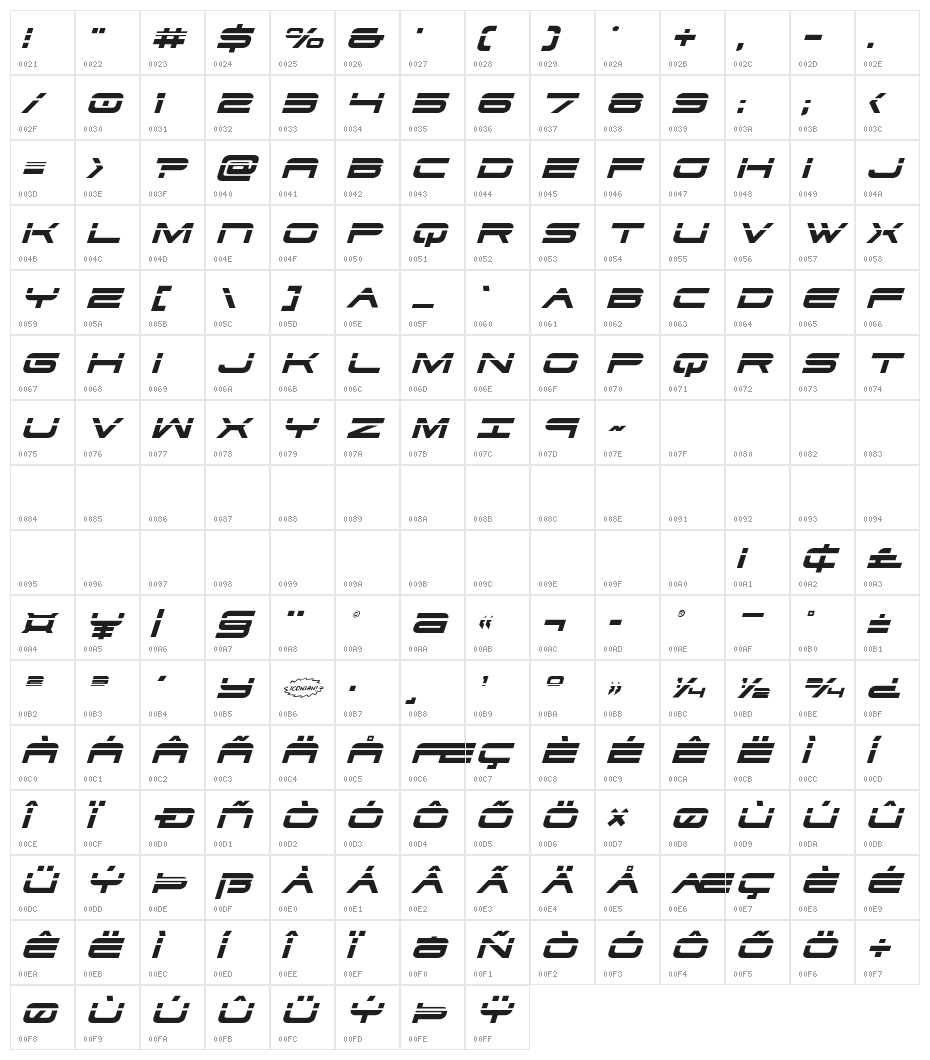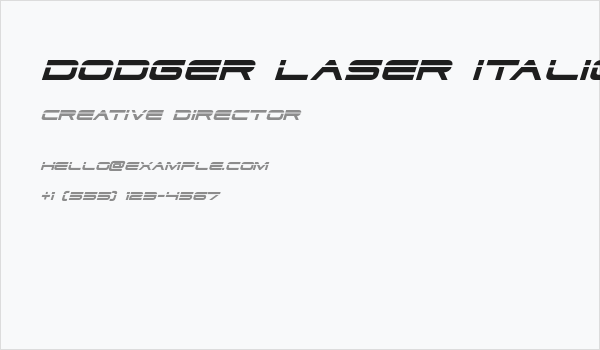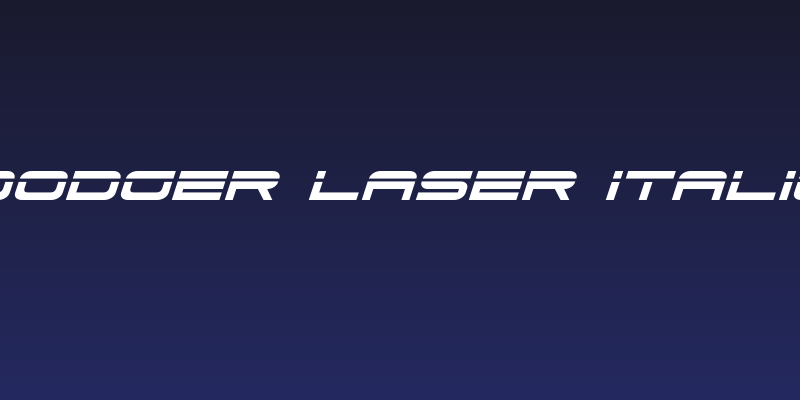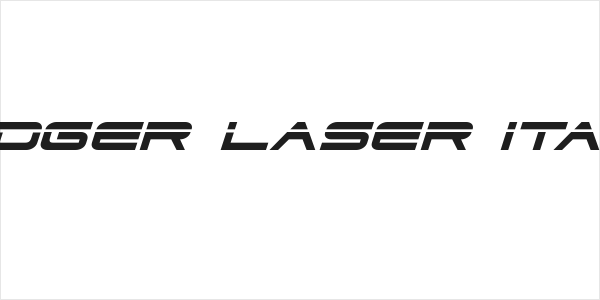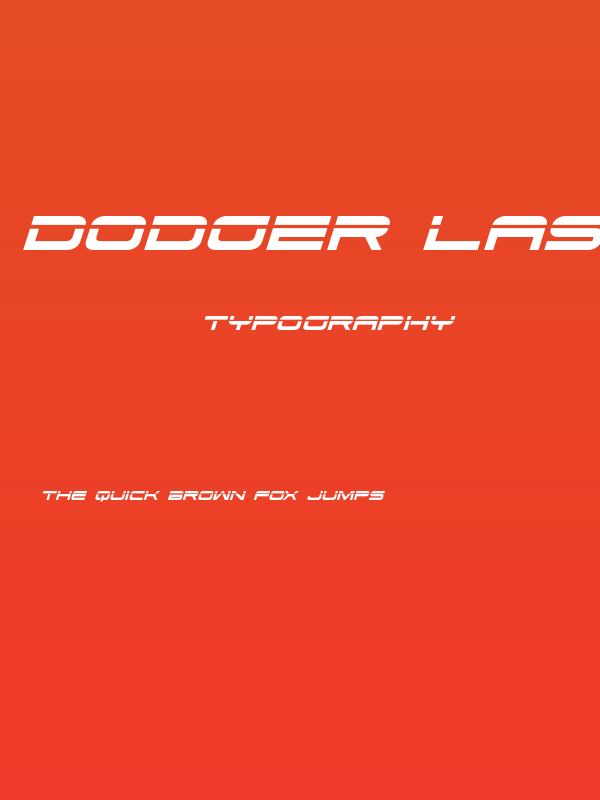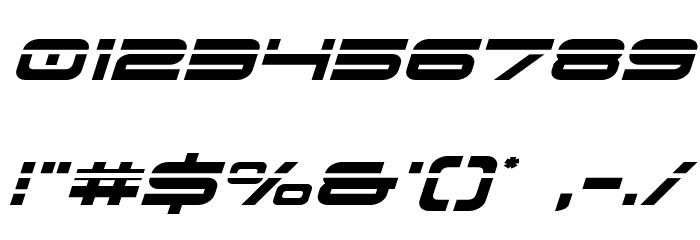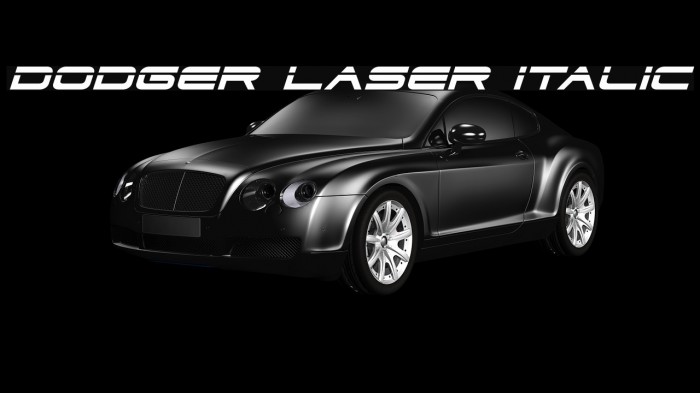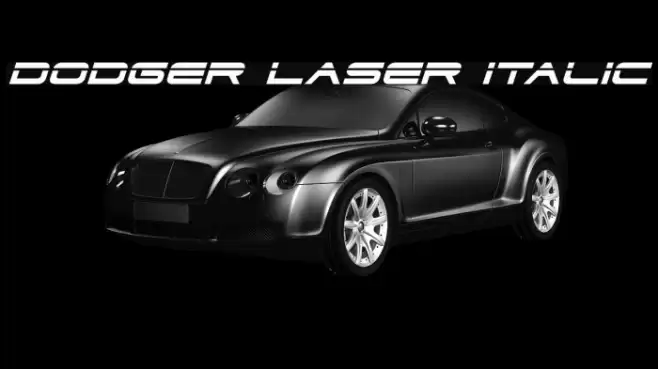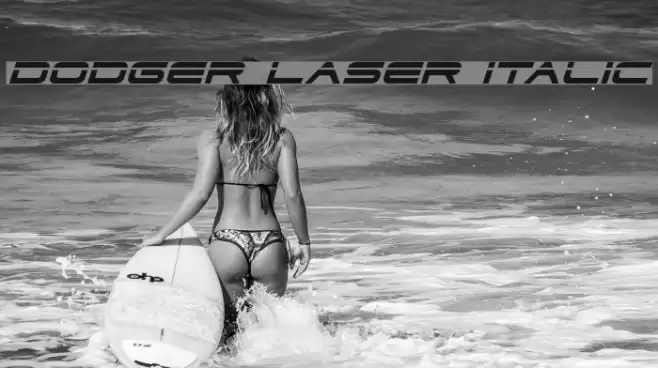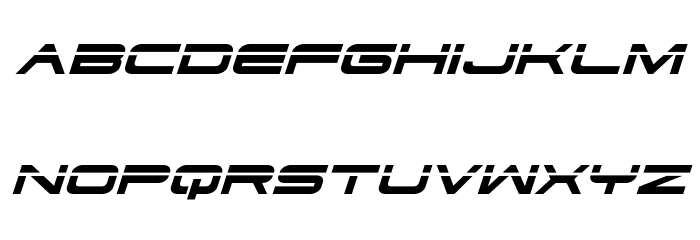
Dodger Laser Italic Font
Dodger Laser Italic Description
This font features a futuristic and dynamic design, characterized by sharp angles and a sleek, italicized form. The characters are bold and have a distinct, forward-leaning slant, giving an impression of speed and modernity. The uppercase and lowercase letters maintain a consistent style, with clean lines and a geometric structure. The numerals and special characters follow the same aesthetic, ensuring uniformity across all glyphs. This font's design is ideal for projects that require a modern and edgy look, such as technology branding, sports team logos, or sci-fi themed graphics.
| Use Case | Logos, Headlines |
| Proposed Projects | Ideal for technology branding, sports logos, and sci-fi themed designs. |